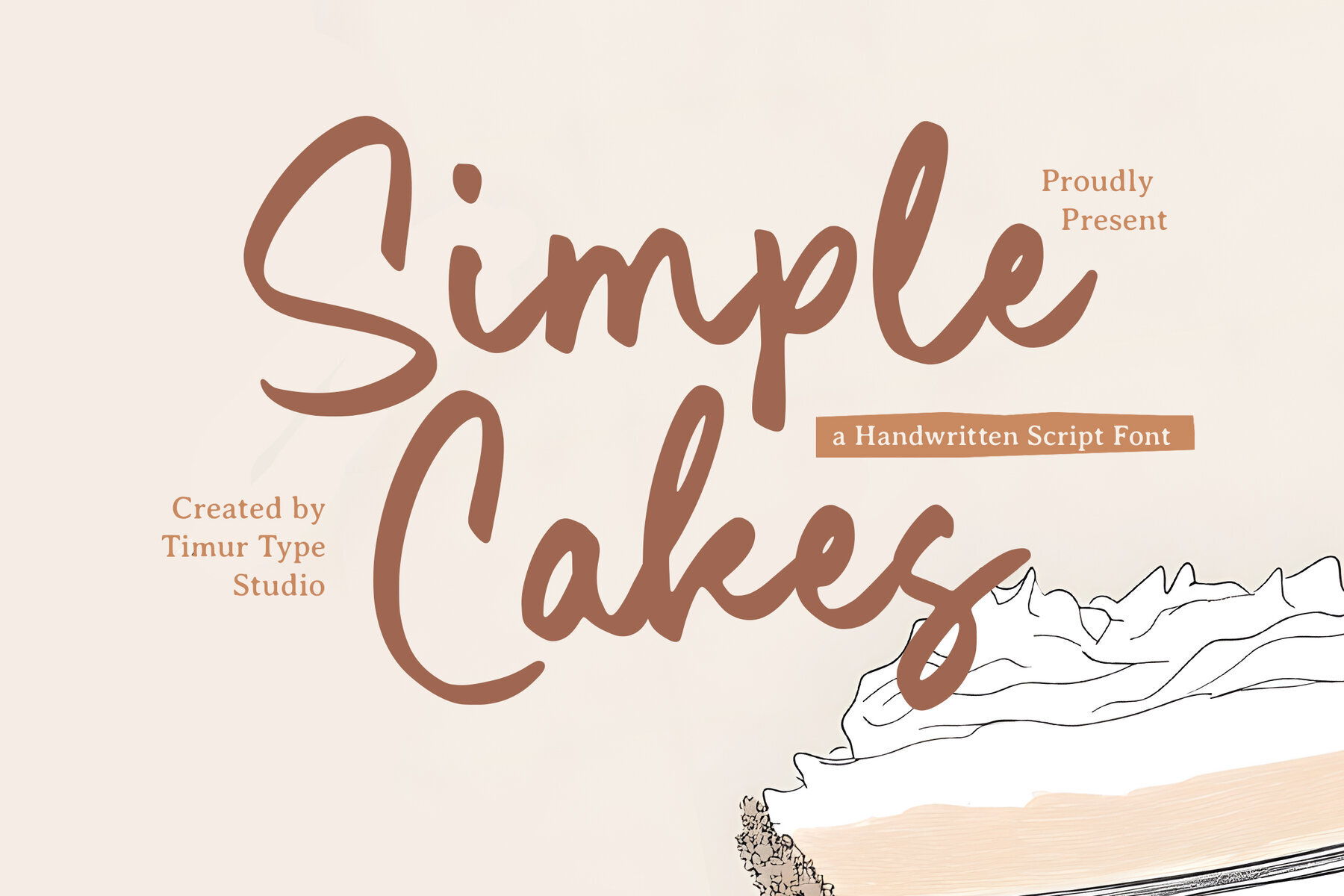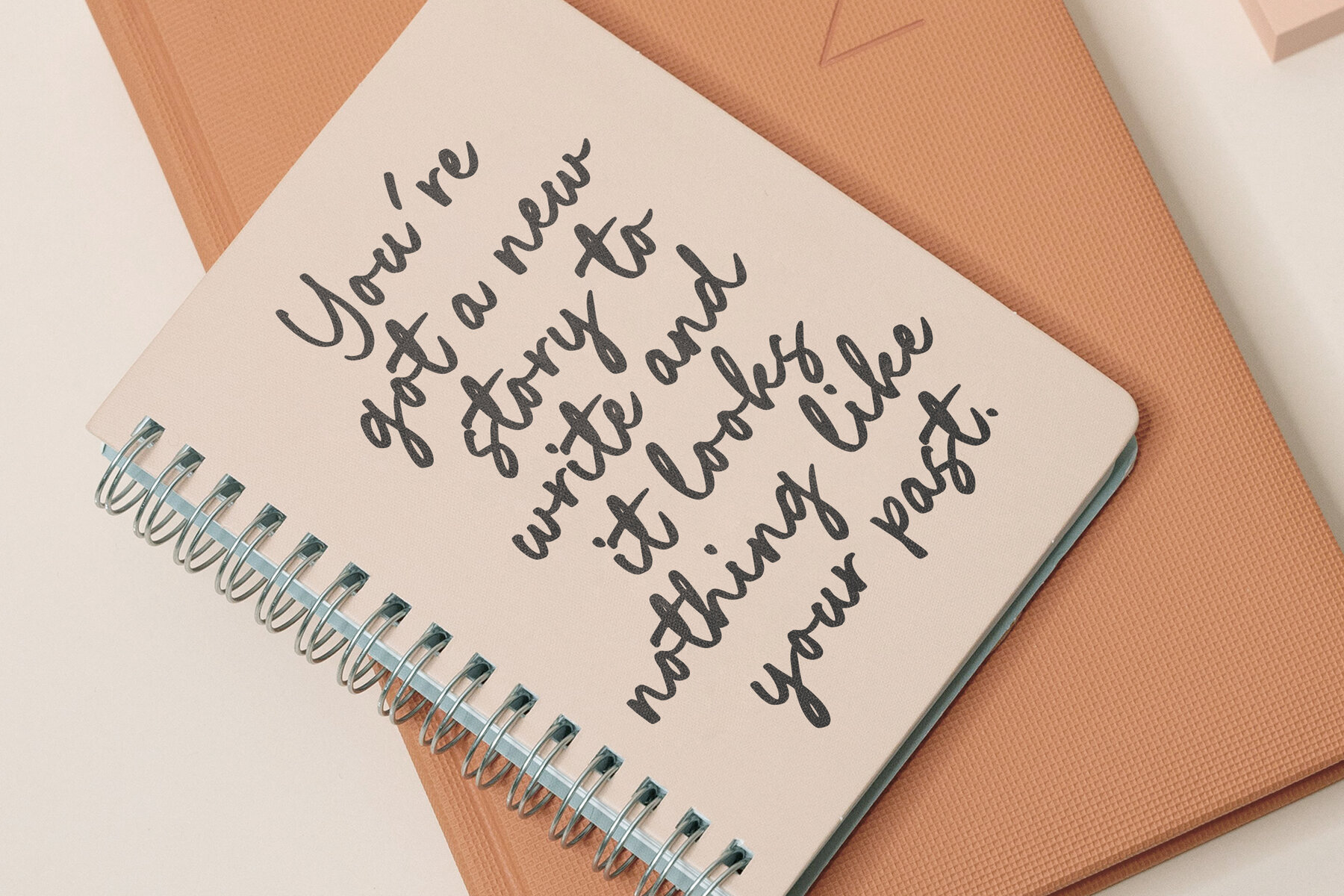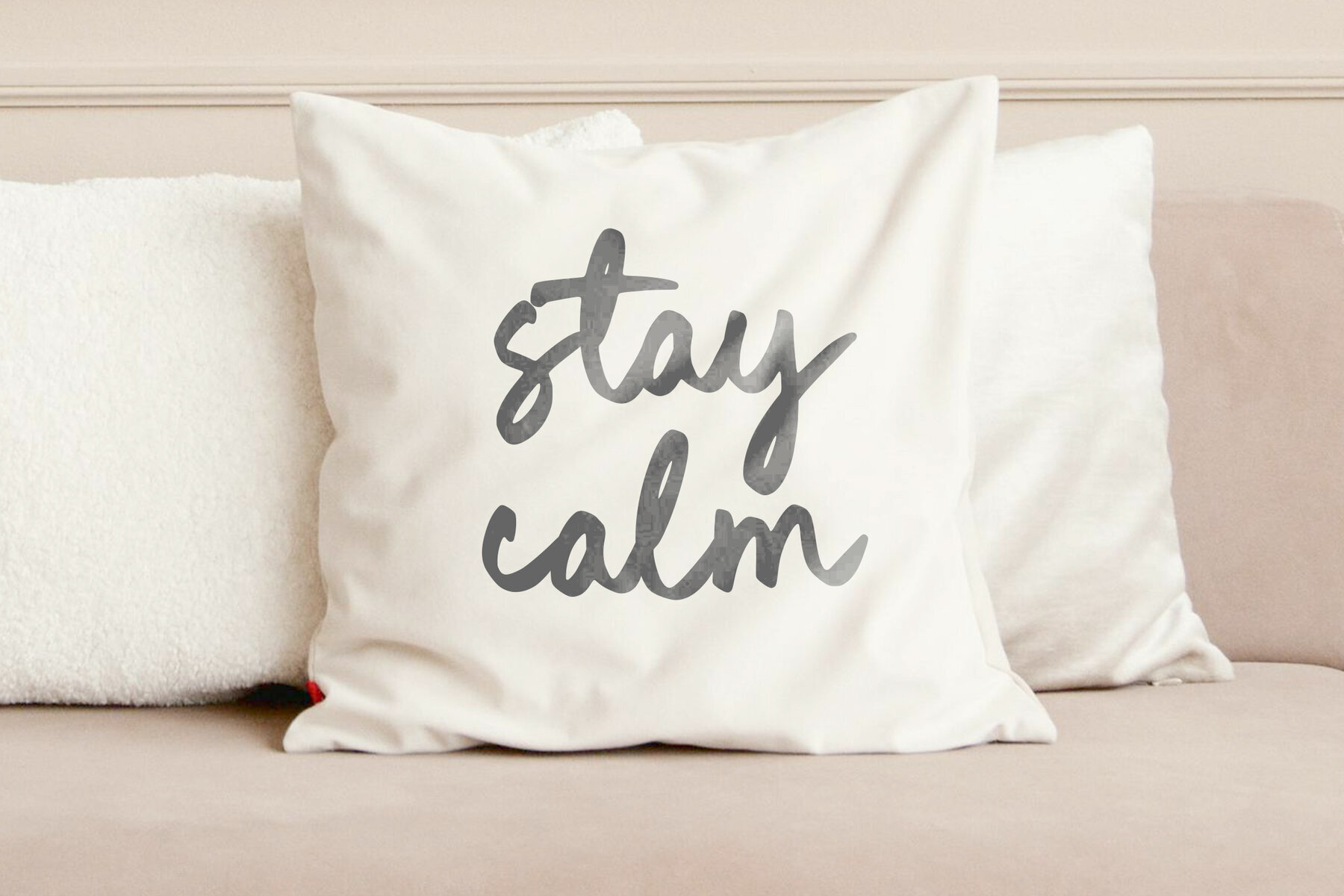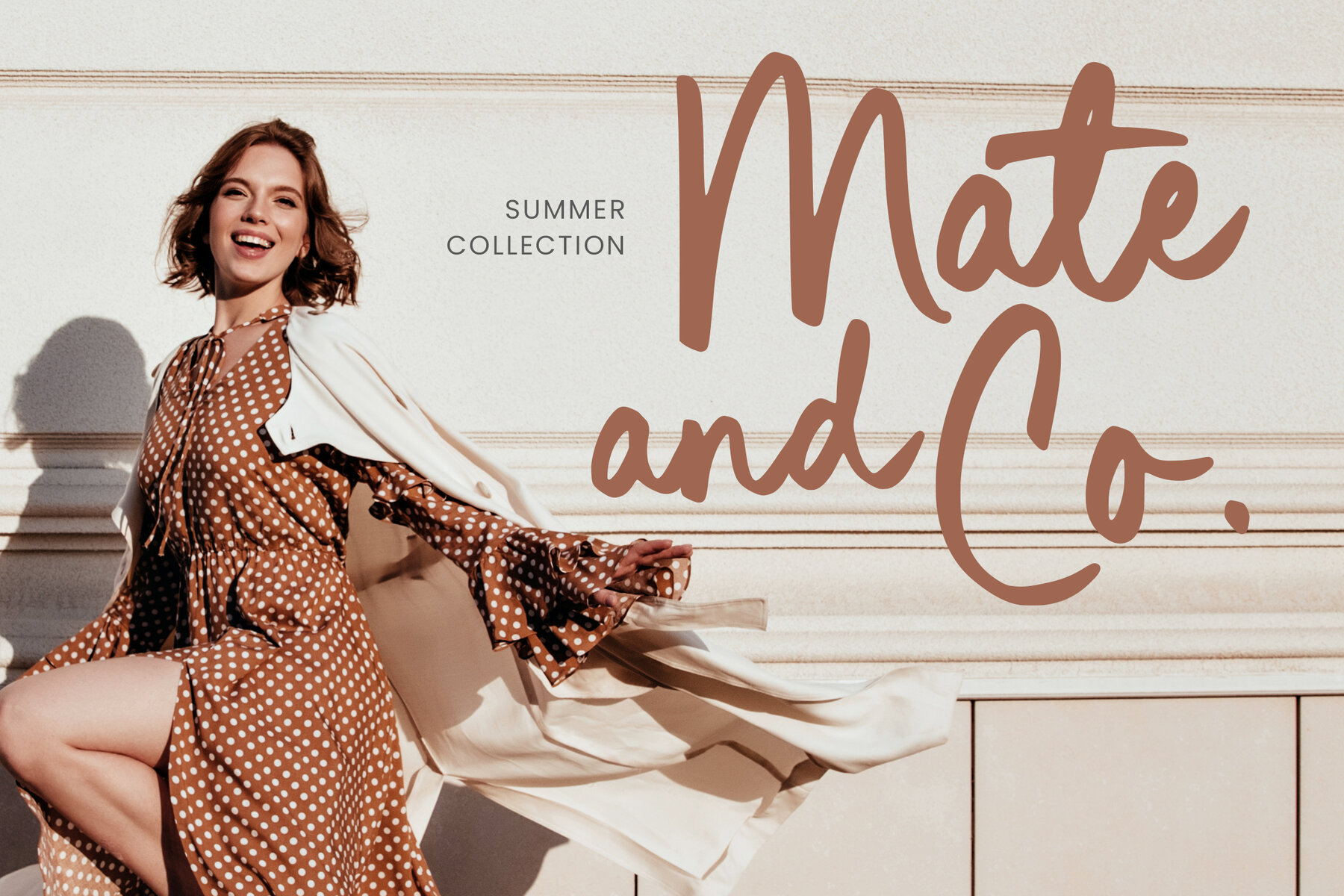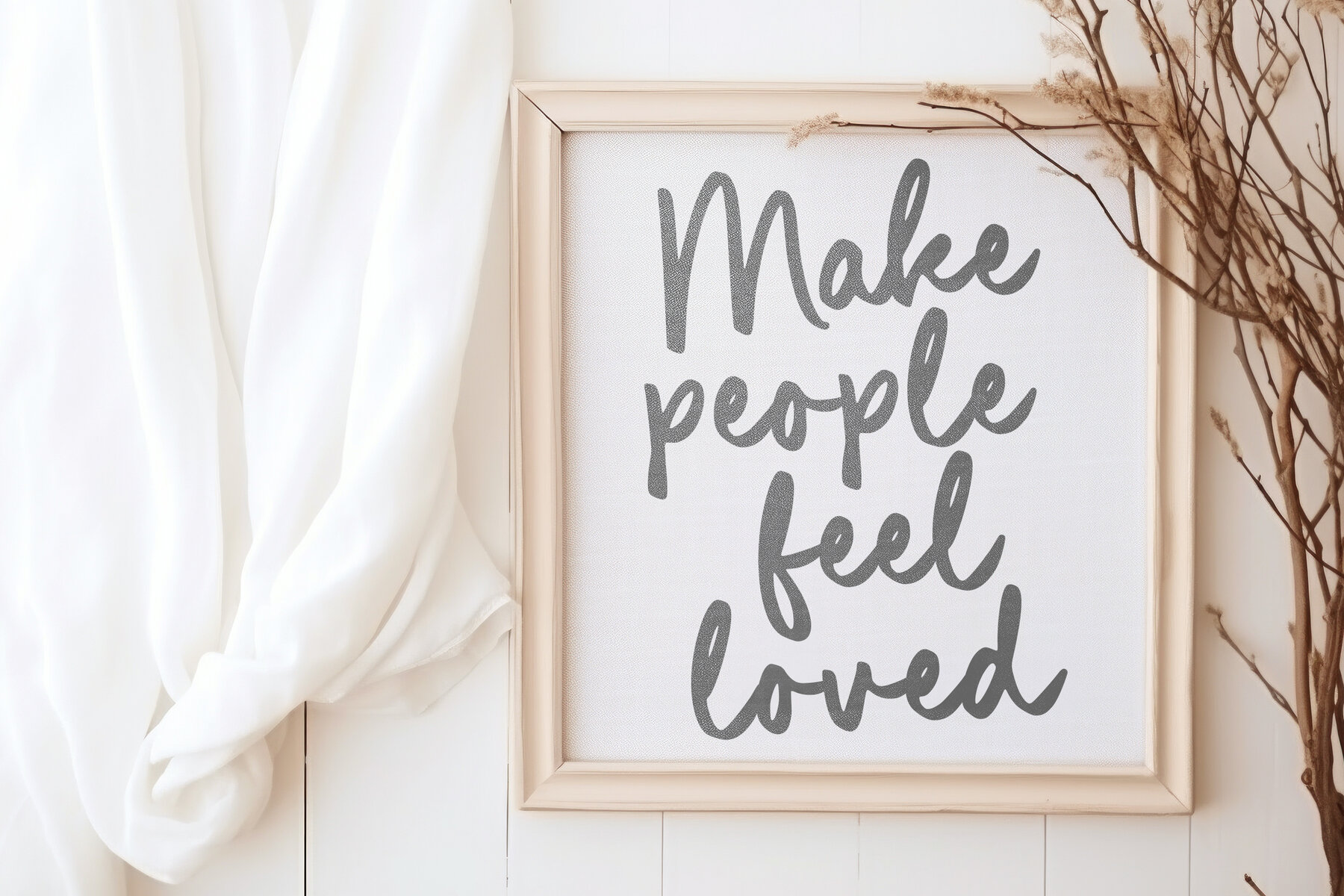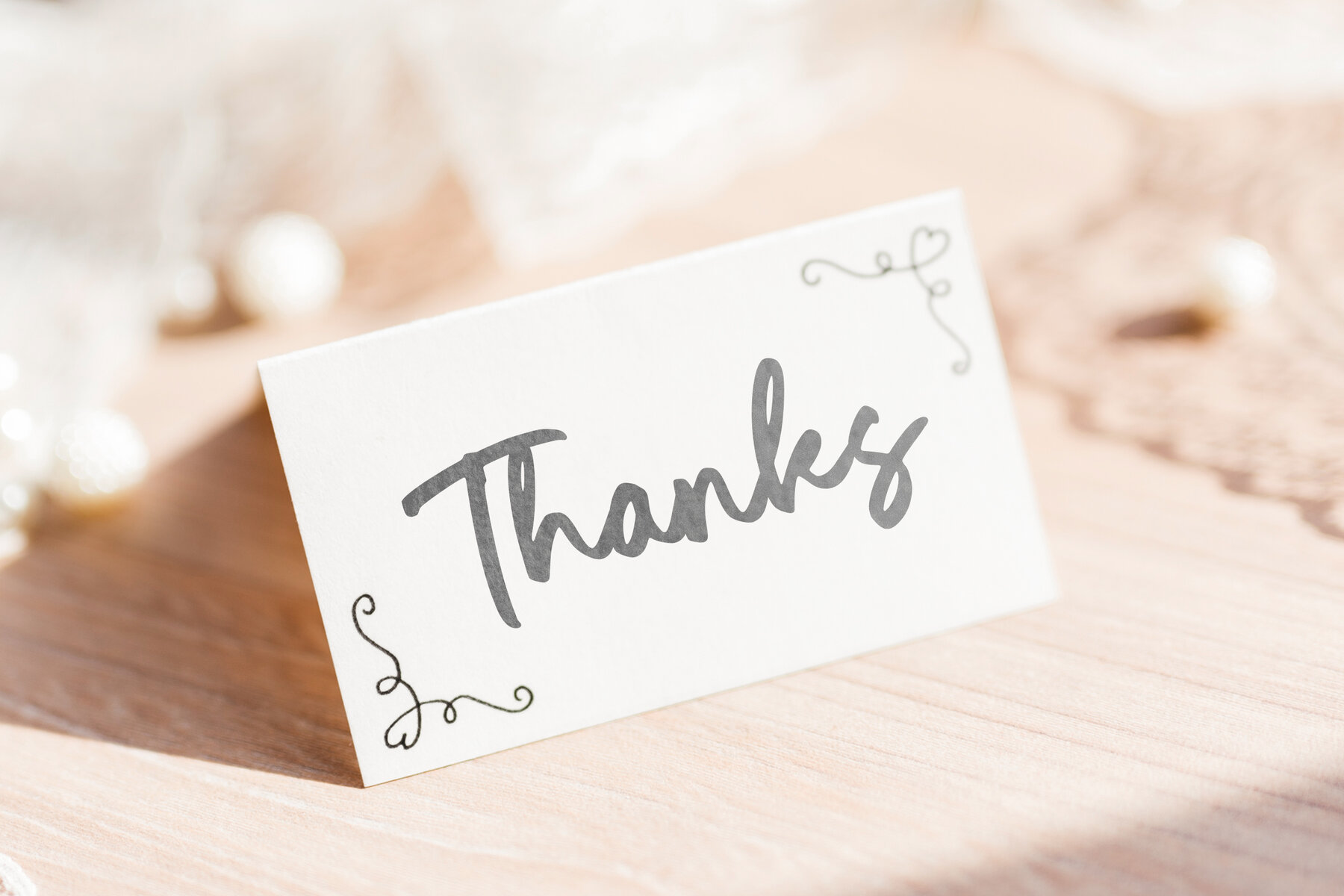
Simple Cakes Font
Simple Cakes
Simple Cakes is a delightful handwritten script font that exudes a playful and whimsical charm. Featuring smooth curves and a natural flow, this font is ideal for a variety of creative projects. Whether you're designing invitations or working on a branding project, Simple Cakes adds an inviting warmth that draws the eye and captures the imagination.
Perfect for both personal and professional use, this font is crafted to provide a harmonious balance between elegance and approachability. Its organic design elements make it versatile enough for titles, logos, and social media graphics. Simple Cakes offers a refreshingly creative touch that's suited for any project needing a bit of personality and warmth.